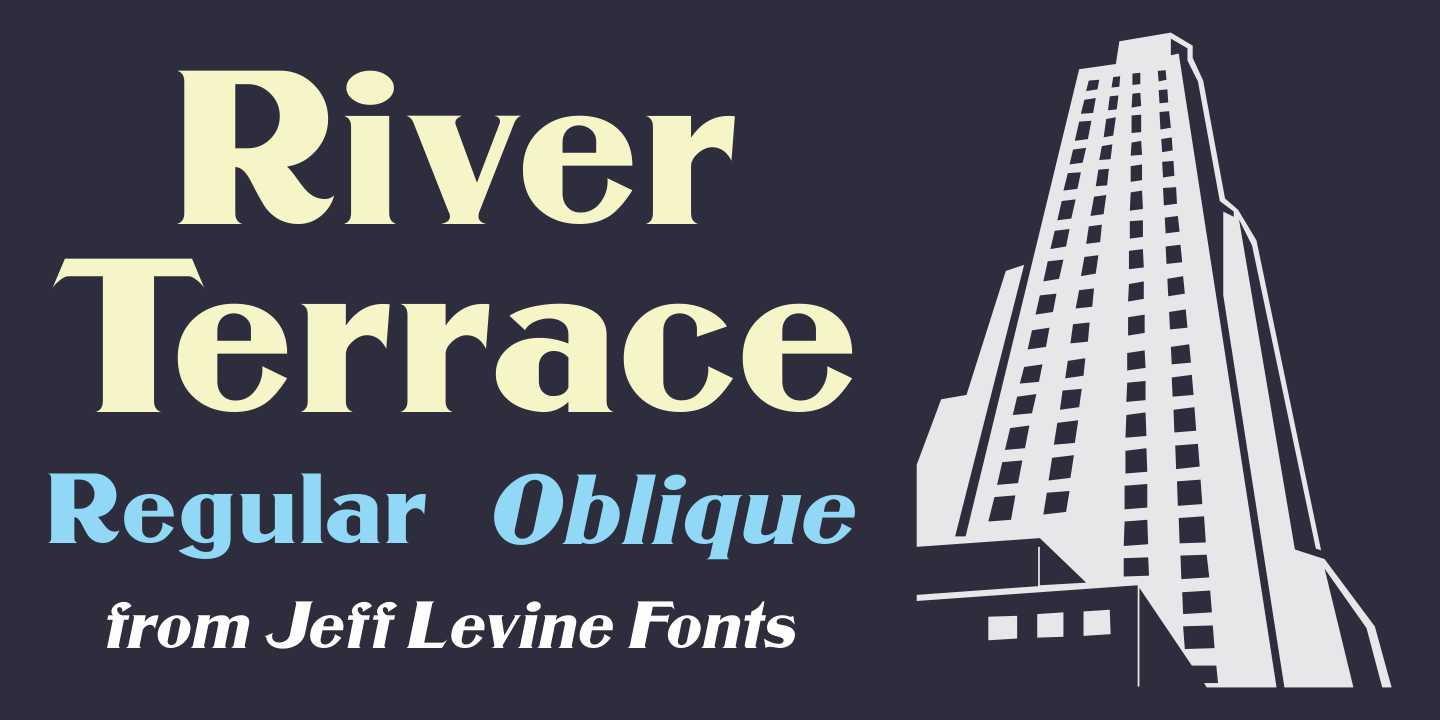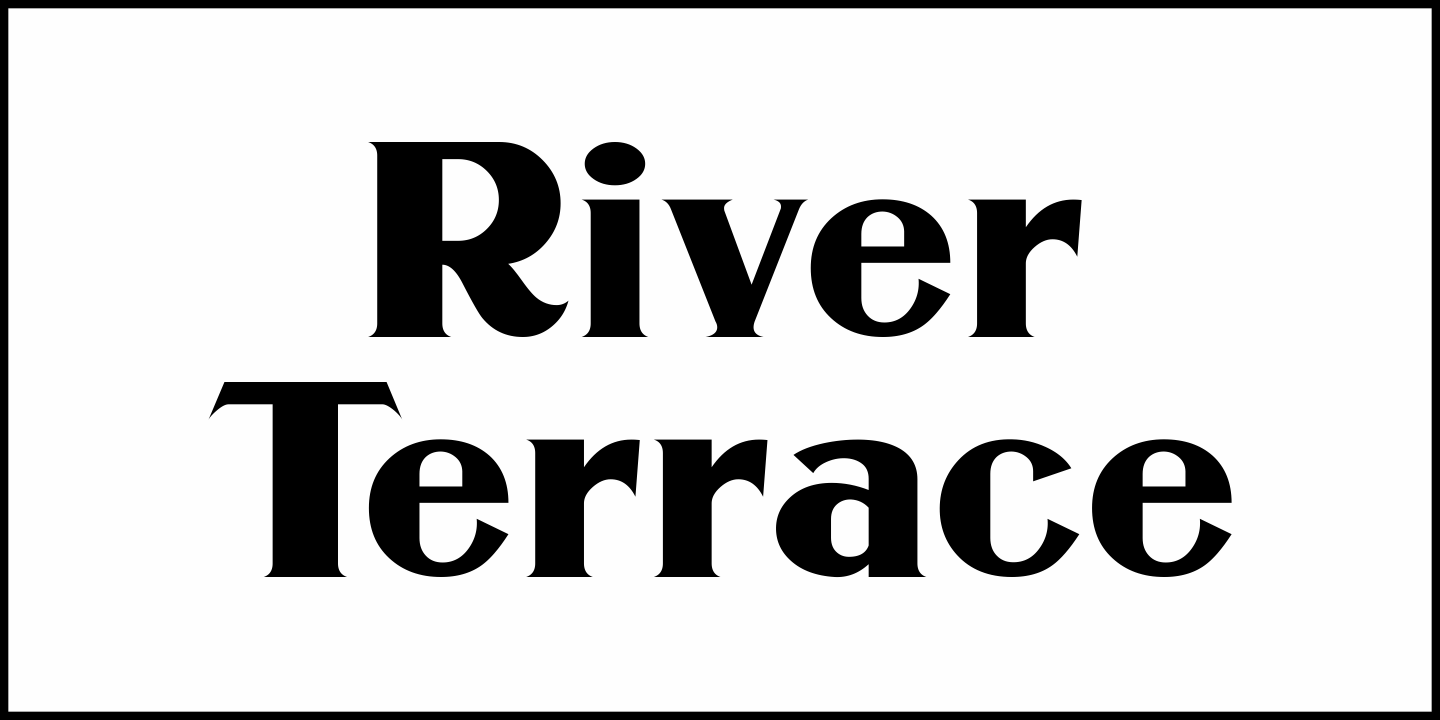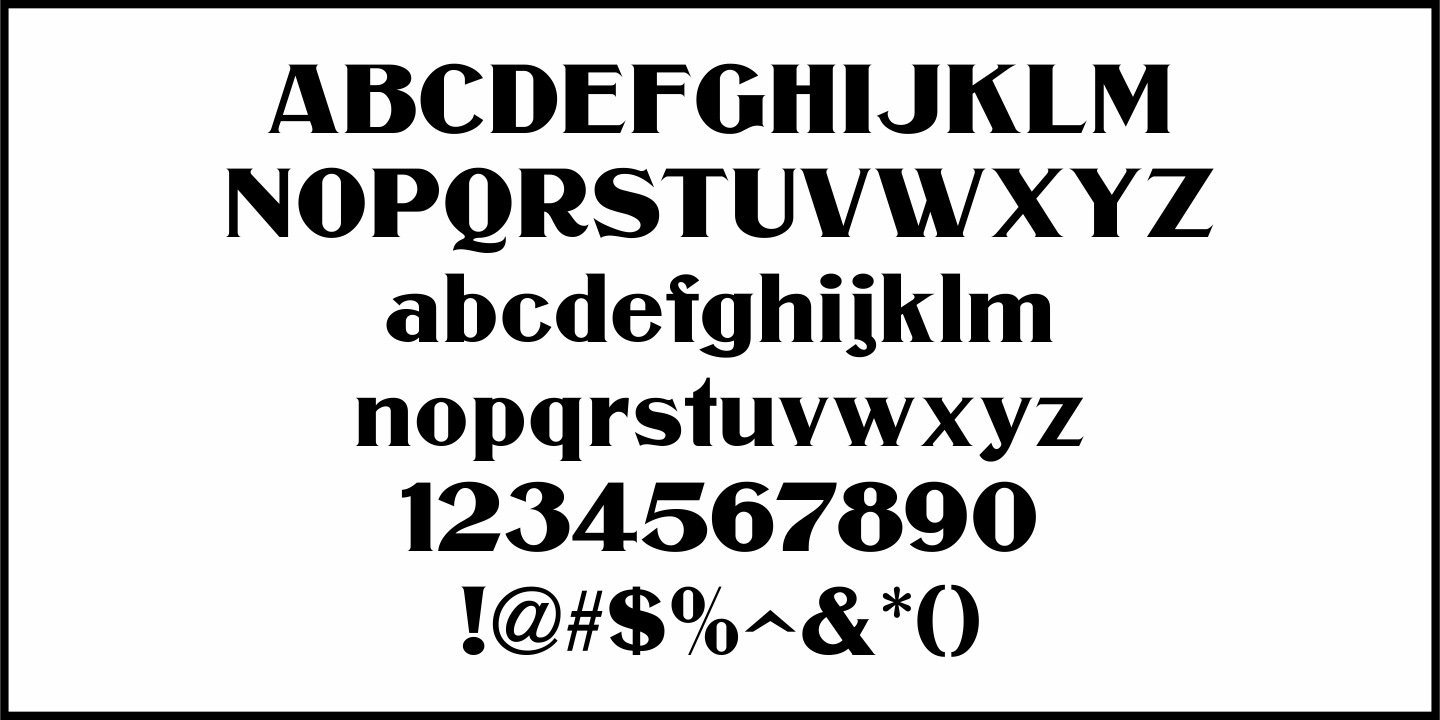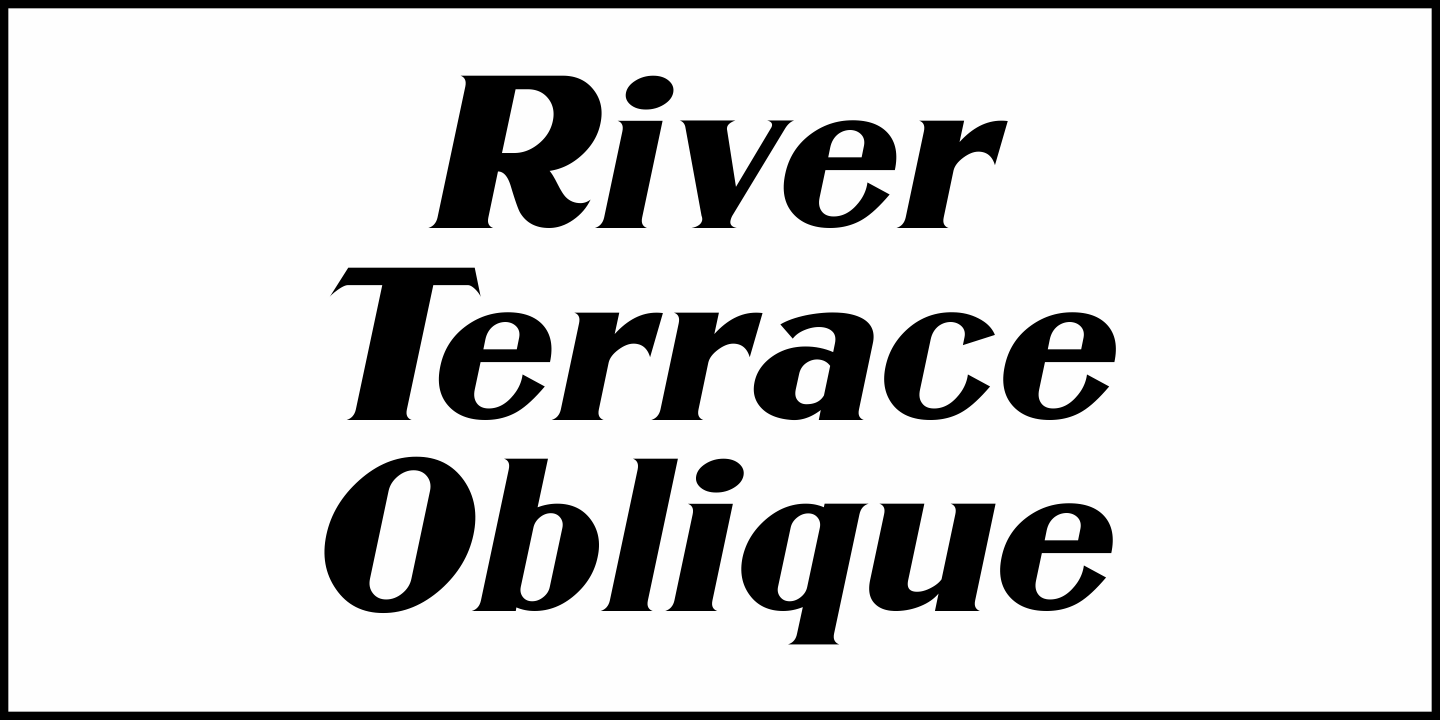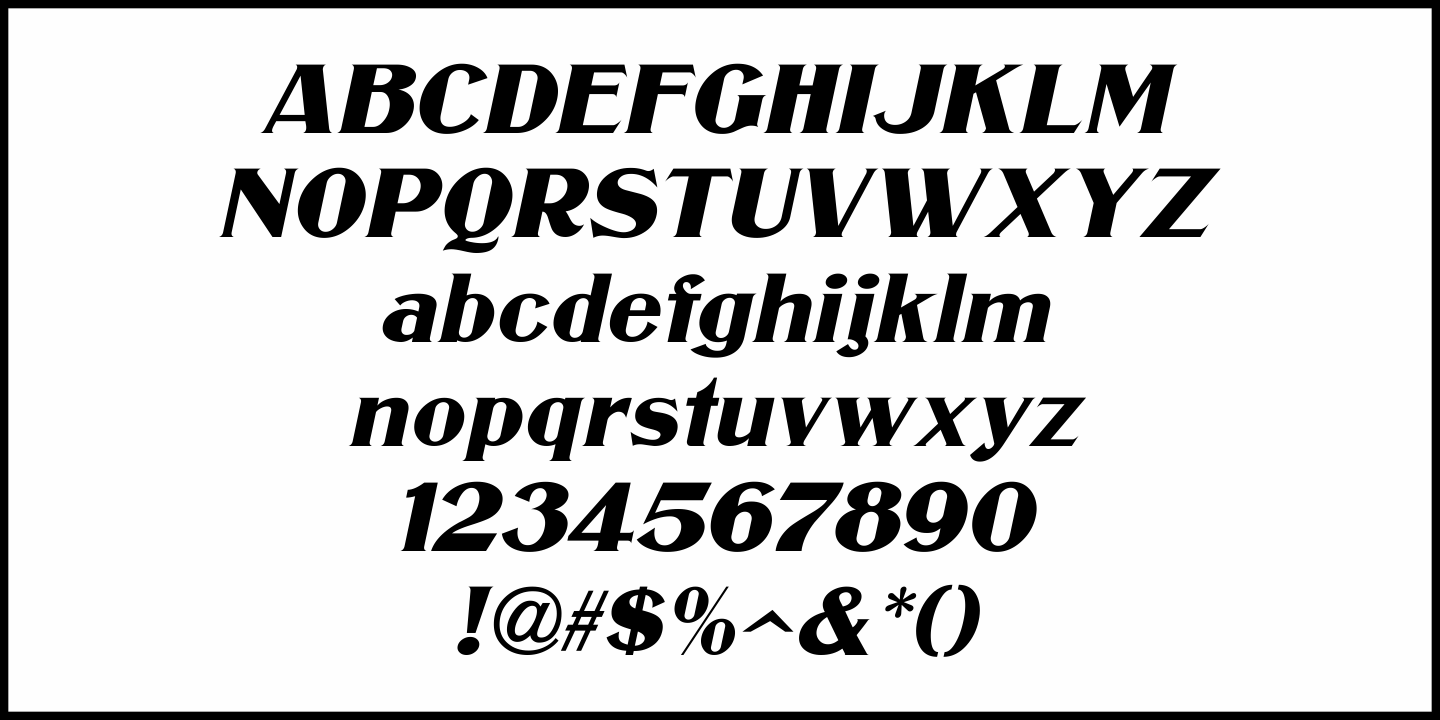
River Terrace
“Corbitt” is one of the many designs found within the pages of the 1907 Inland Type Foundry specimen book.
A bold spurred serif with Art Nouveau influences, it is now available digitally as River Terrace JNL in both regular and oblique versions.